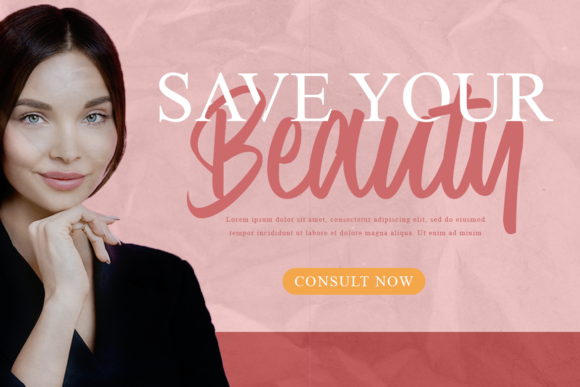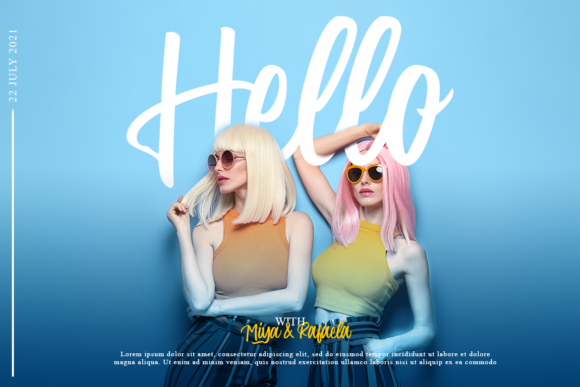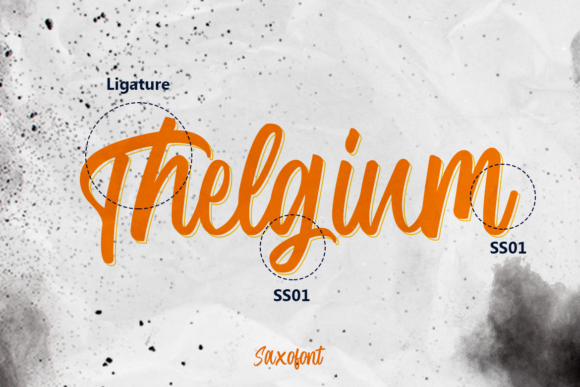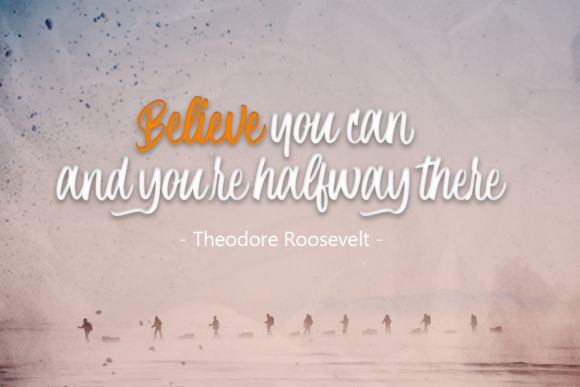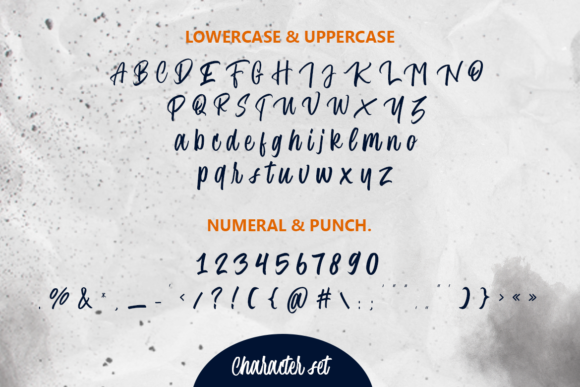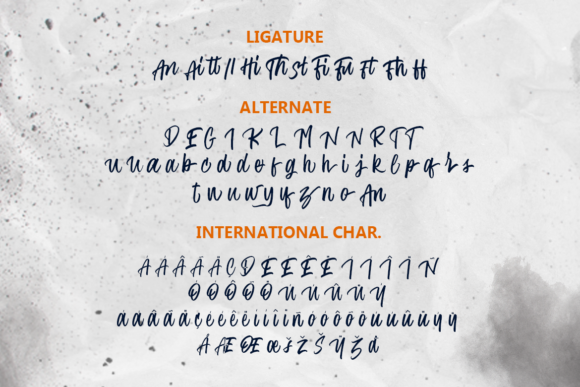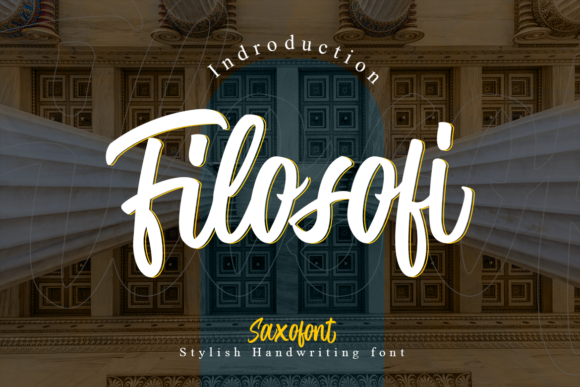
Introducing Filosofi Font: Elevate Your Designs with Elegant Script
In the world of typography, a well-crafted font can make all the difference in elevating your designs to new heights. Meet Filosofi, an elegant script font that embodies the perfect blend of classic sophistication and modern flair. Inspired by timeless calligraphy, Filosofi is designed to bring a touch of refinement and poise to your projects.
The Philosophy Behind Filosofi
Filosofi’s design philosophy revolves around balance and versatility. This beautiful script font strikes the perfect chord between being too thin and too thick, making it an ideal choice for a wide range of applications. Whether you’re working on a branding project, packaging design, or simply looking to add a personal touch to your digital creations, Filosofi is the perfect companion.
Key Features of Filosofi Font
• Contemporary Atmosphere: Filosofi boasts a modern and fresh feel, making it perfect for designers looking to create stunning visuals that resonate with their audience.
• Impeccable Form: The font’s elegant and refined structure ensures that your text looks polished and sophisticated, adding a level of professionalism to your work.
• PUA Encoded: Filosofi is PUA (Private Use Area) encoded, allowing you to access a vast array of glyphs and swashes with ease. This feature makes it simple to experiment with different styles and create unique pieces that reflect your creativity.
• Balanced and Varied: The font’s balanced x-height and varied letterforms ensure that your text remains legible and visually appealing, even at smaller sizes.
What Makes Filosofi Stand Out?
In a sea of fonts, Filosofi stands out for its unique blend of classic and modern elements. Here are a few reasons why designers and crafters will love this elegant script font:
• Timeless Appeal: Filosofi’s design is inspired by classic calligraphy, giving it a timeless quality that won’t go out of style.
• Versatility: The font’s balanced and varied structure makes it suitable for a wide range of applications, from elegant branding to beautiful stationery.
• Easy to Use: With PUA encoding, accessing Filosofi’s glyphs and swashes is a breeze, allowing you to focus on creating stunning designs rather than struggling with complicated font mechanics.
How to Use Filosofi in Your Designs
• Branding and Logo Design: Use Filosofi to create elegant and sophisticated logos that reflect your brand’s personality.
• Stationery and Packaging: Add a touch of refinement to your stationery, packaging, and product labels with Filosofi’s beautiful script.
• Digital Creations: Use Filosofi to add a personal touch to your digital creations, such as social media graphics, blog posts, and email newsletters.
Filosofi font is a beautiful and elegant script font that offers a perfect blend of classic sophistication and modern flair. With its impeccable form, balanced structure, and PUA encoding, Filosofi is an excellent choice for designers and crafters looking to elevate their designs. Whether you’re working on a branding project, packaging design, or simply looking to add a personal touch to your digital creations, Filosofi is the perfect companion. So why wait? Discover the beauty of Filosofi and take your designs to new heights!